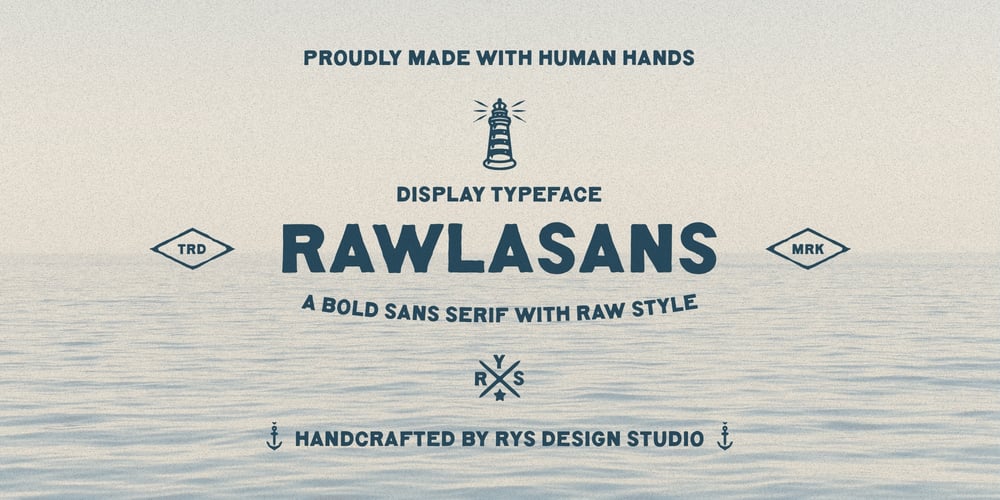
RYS Rawlasans
RYS Rawlasans font
RYS Rawlasans Font Family was designed by Witoko Aji Laksono and published by RYS Design Studio. RYS Rawlasans contains 1 styles and family package options. Introducing RAWLASANS is a Handmade FontA bold sans serif display typeface with a raw style, handcrafted with human hands. Inspired by authentic creations that embrace imperfection but this font is perfect for displays and logos, as well as for apparel design, quotes, packaging, merchandise, signs, or anything that needs an original handmade feel.fyi, Rawlasans is derived from the Javanese word “rolasan,” which means taking a break during work hours. It serves as a reminder of the importance of pausing to breathe in every journey. May your days ahead be filled with meaning.